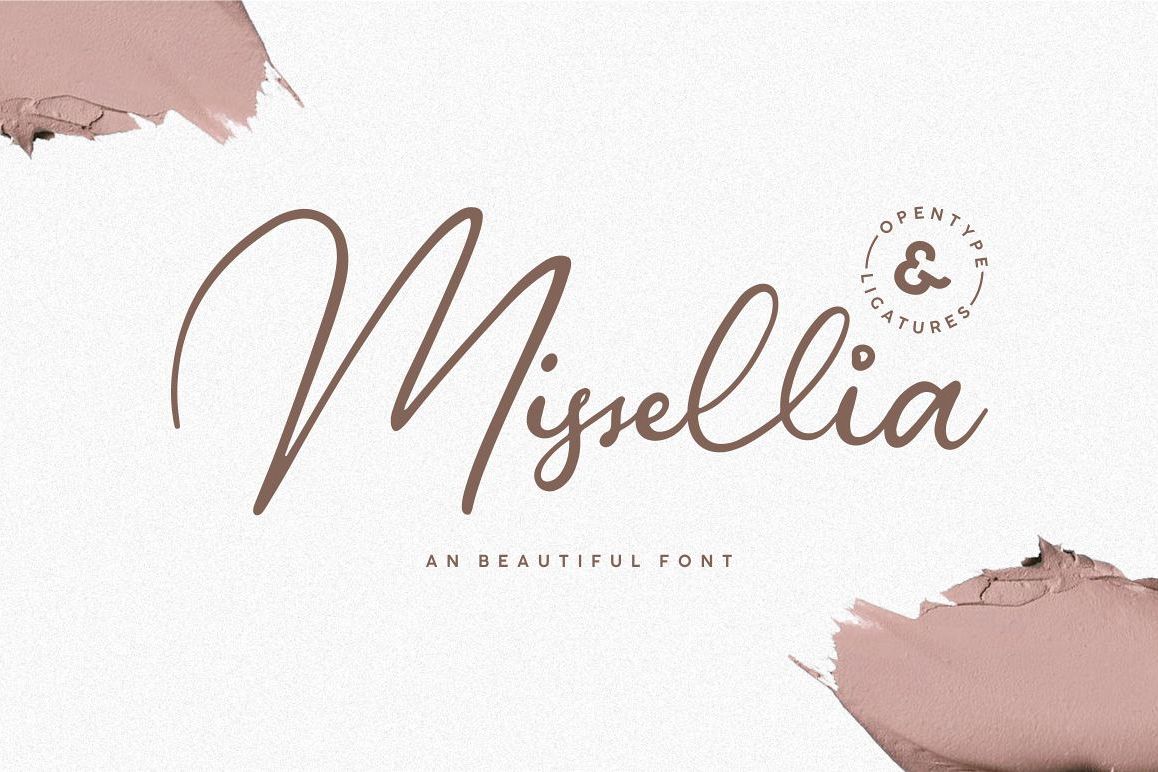
Missellia Script
Introducing to beautiful fonts : Missellia Script
Missellia is a elegant and modern looking handwritten script, ideal for use in projects that need an organic and natural style.
This font is great for logo, logotype, branding,wedding, fashion, label, book cover, t-shirt, instagram post, and other, and can add an elegant and classy look to your work.
• Basic Latin A-Z and a-z, Numbers, & Symbols
• Opentype Feature & Ligatures